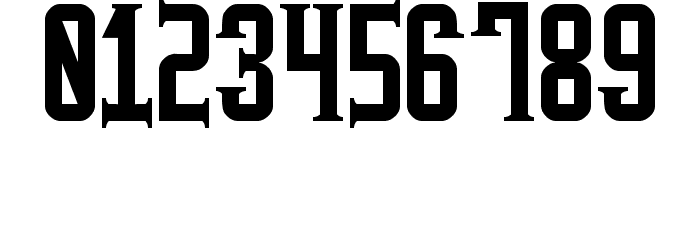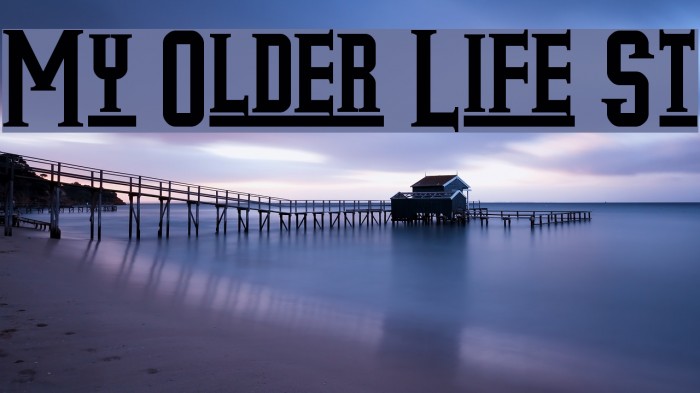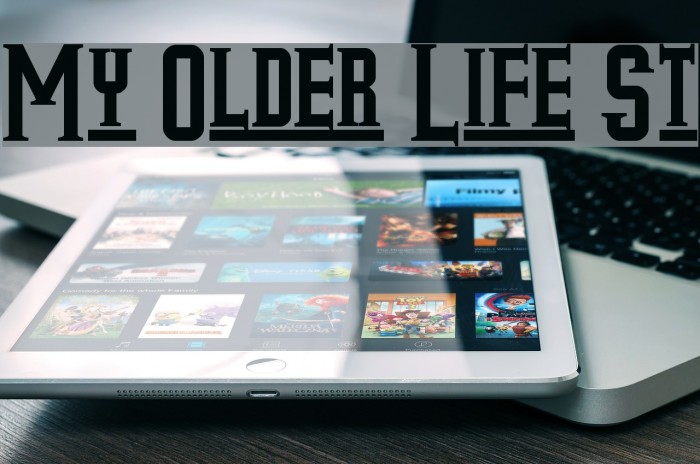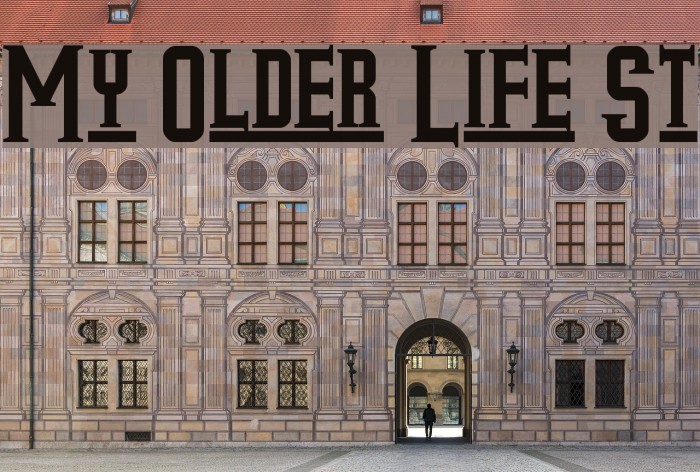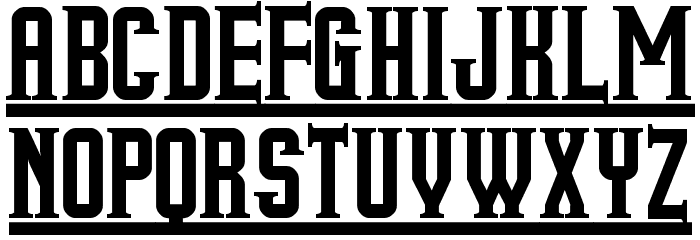
My Older Life St Font
This font features a bold, slab serif style with a strong, commanding presence. The characters are tall and narrow, with thick vertical strokes and slightly thinner horizontal lines, creating a high contrast that enhances readability. The serifs are prominent and block-like, adding a touch of vintage charm. The overall design is reminiscent of old Western typography, making it ideal for projects that require a rugged, historical feel. The numbers and special characters maintain the same boldness and style, ensuring consistency across all text elements.
A bold, vintage slab serif font with high contrast and block-like serifs.
• Proposed Projects: Ideal for posters, signage, branding projects, and any design needing a vintage or Western aesthetic.
• Category: Slab Serif
• Bold: Yes
• Italic: No
• Weight: Bold
• Width: Condensed
• Character Spacing: Normal
• Contrast: High
• Overall Style: Vintage
• Use Case: Headlines, Logos, Posters